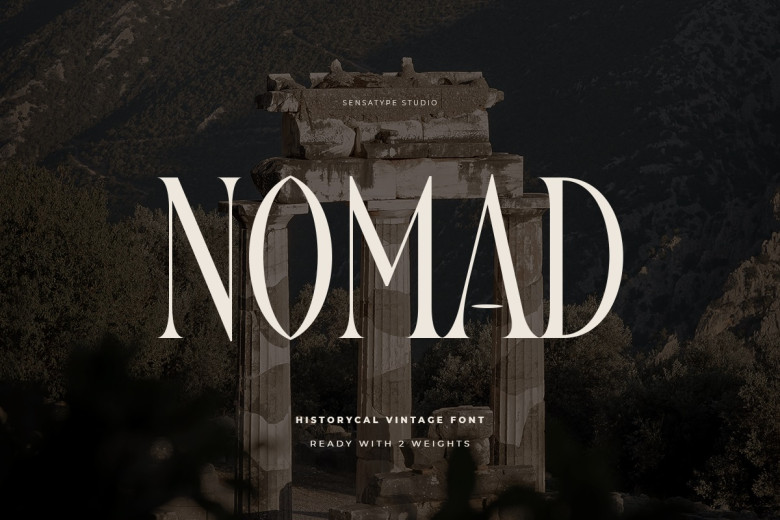
Nomad Font
Nomad is a conservative serif design type face that is balanced, silky and also stylish. Created by font designer sourced from Sensatype Studio. Calm, distinct and traditional look on Roach font would be perfect for any new or elegant logo design. This font will give you the old look, new look and of course the blend of both that is unique look.
Nomad Serif Font